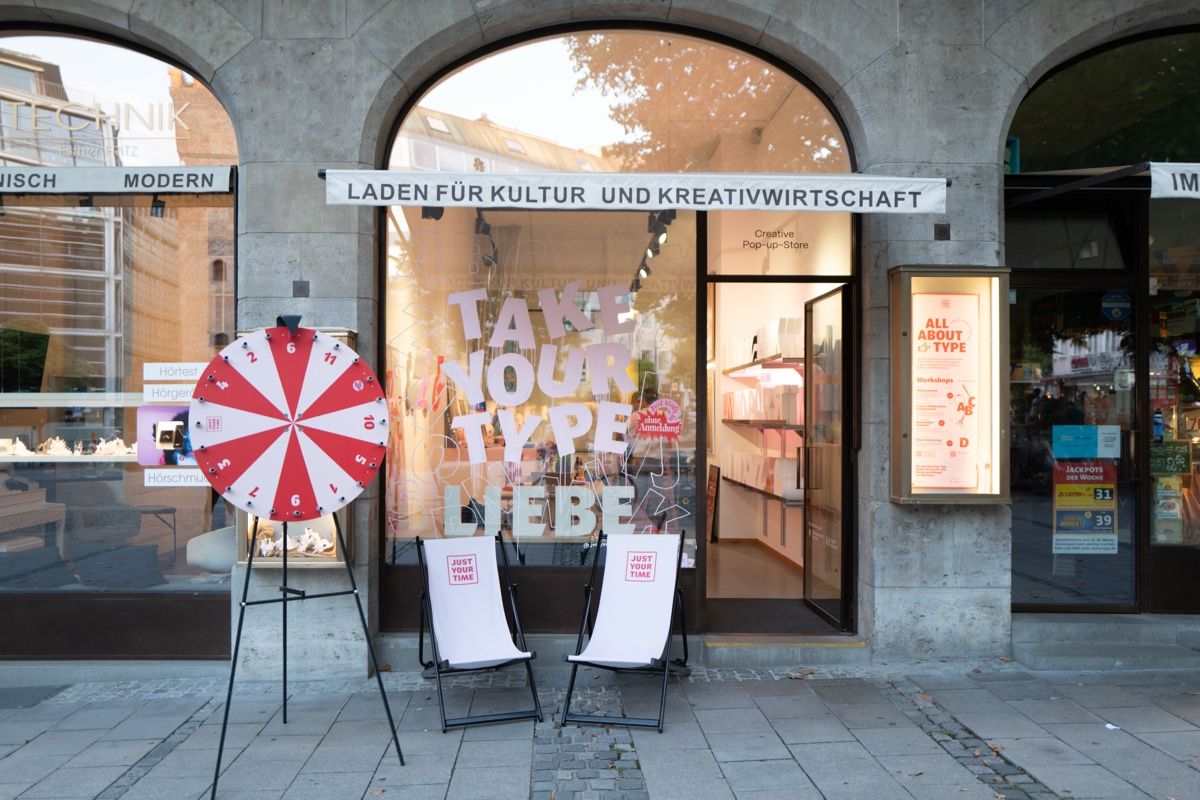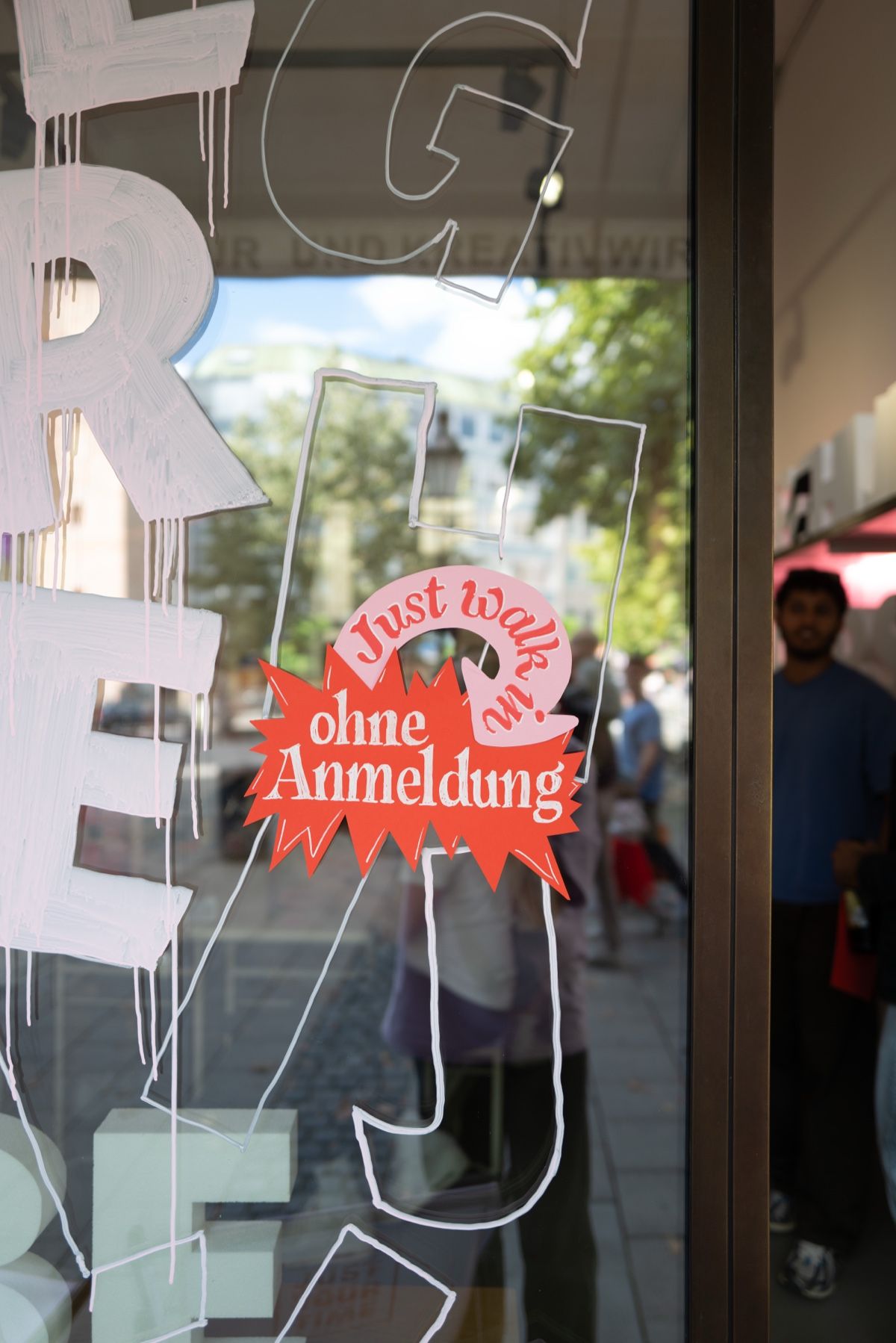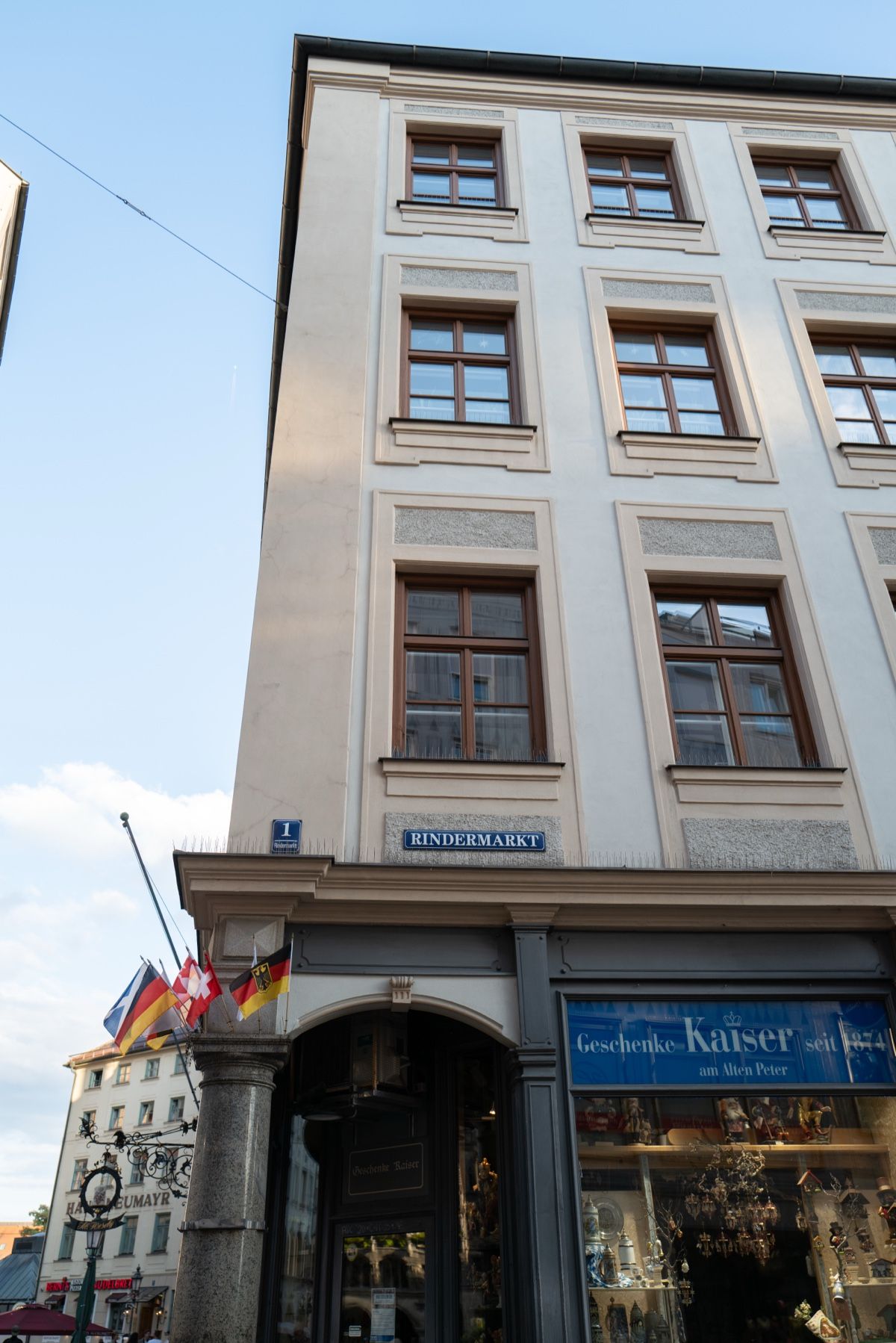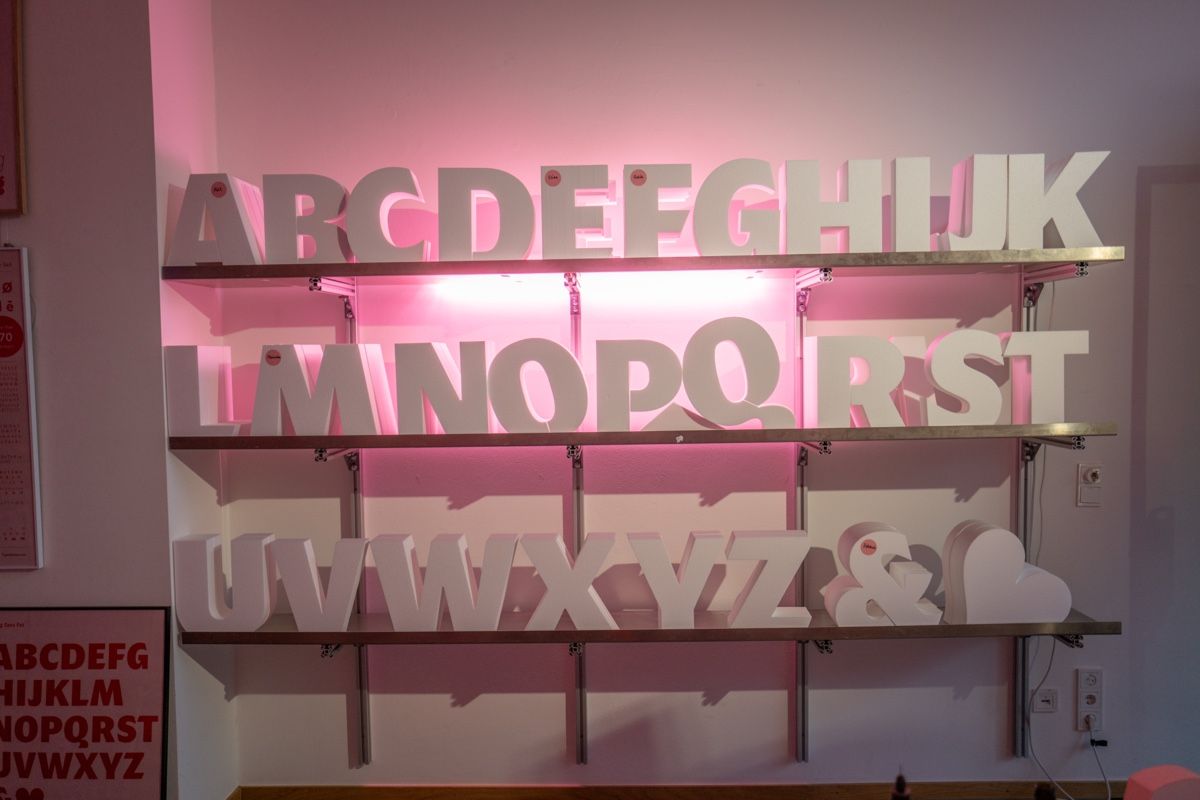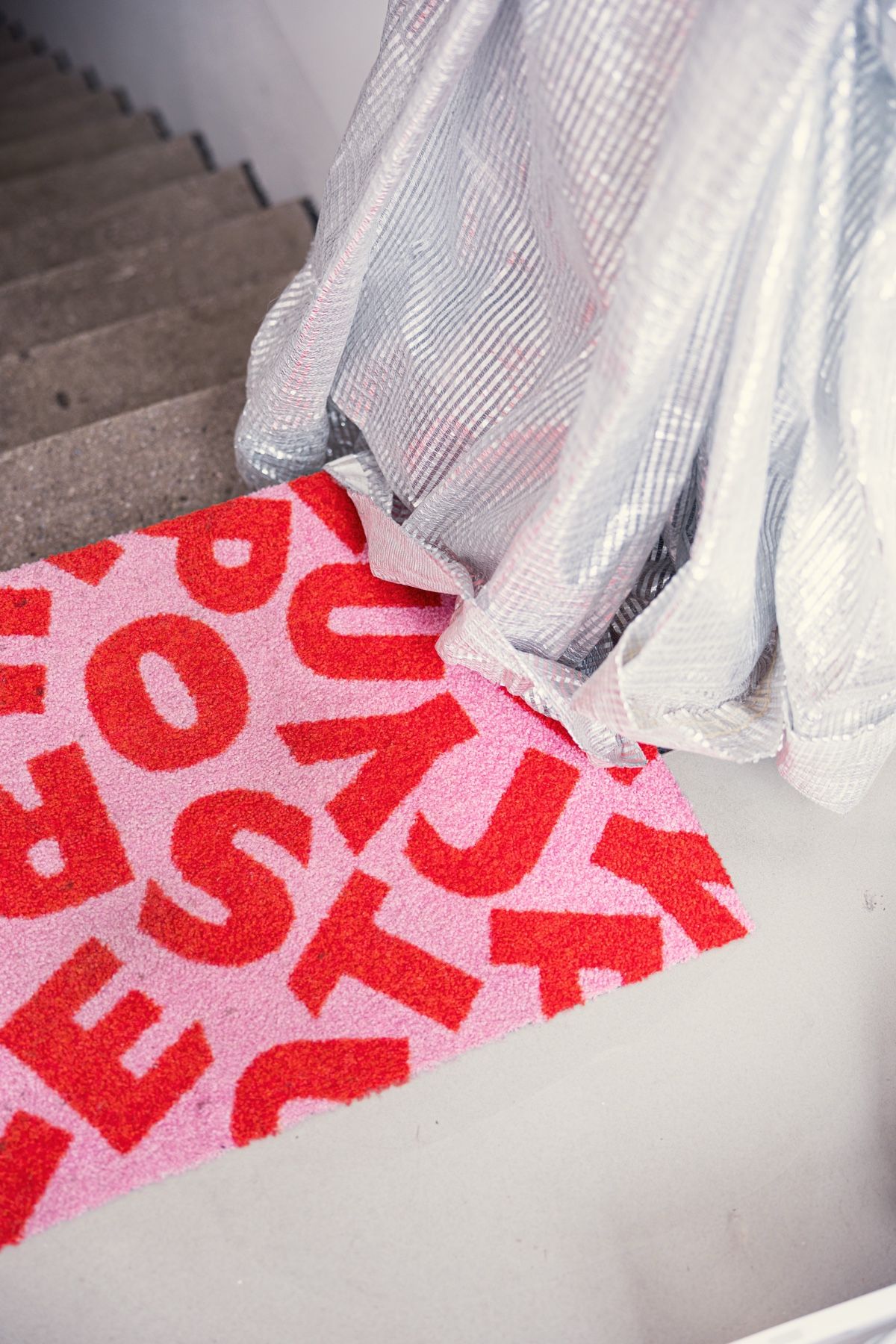
Pop-Up
What happens when a Munich type & branding studio takes its own typeface, Bang Sans, out of the screen and into the city?
From 18–29 August, Just Your Type turns Munich’s Ruffinihaus Creative Pop-Up into a playful playground for type, letters and design.
Expect giant light-up letters, oversized window lettering, a hand-welded 1-metre metal letter, a DIY wheel of fortune — and a huge ampersand disco ball.
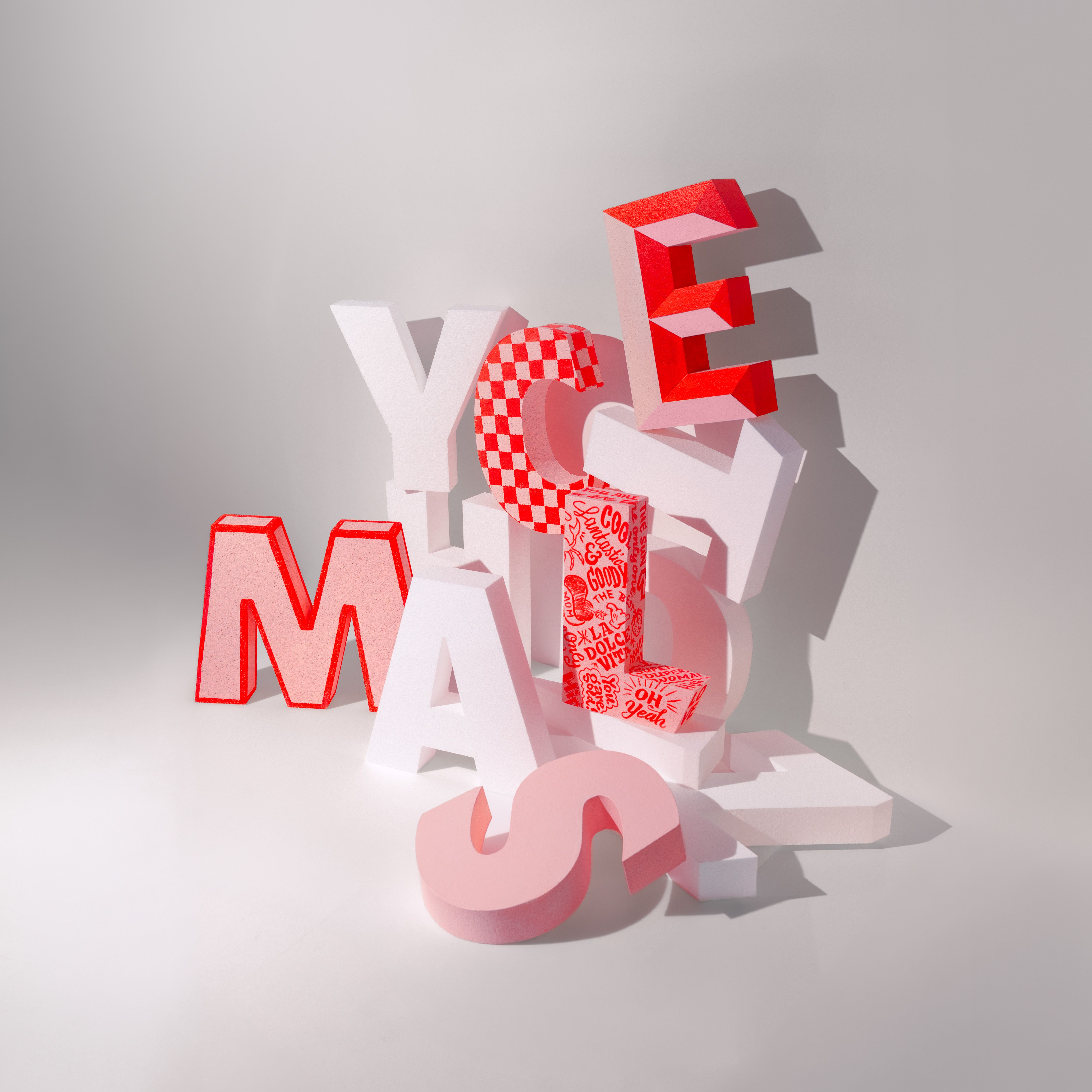
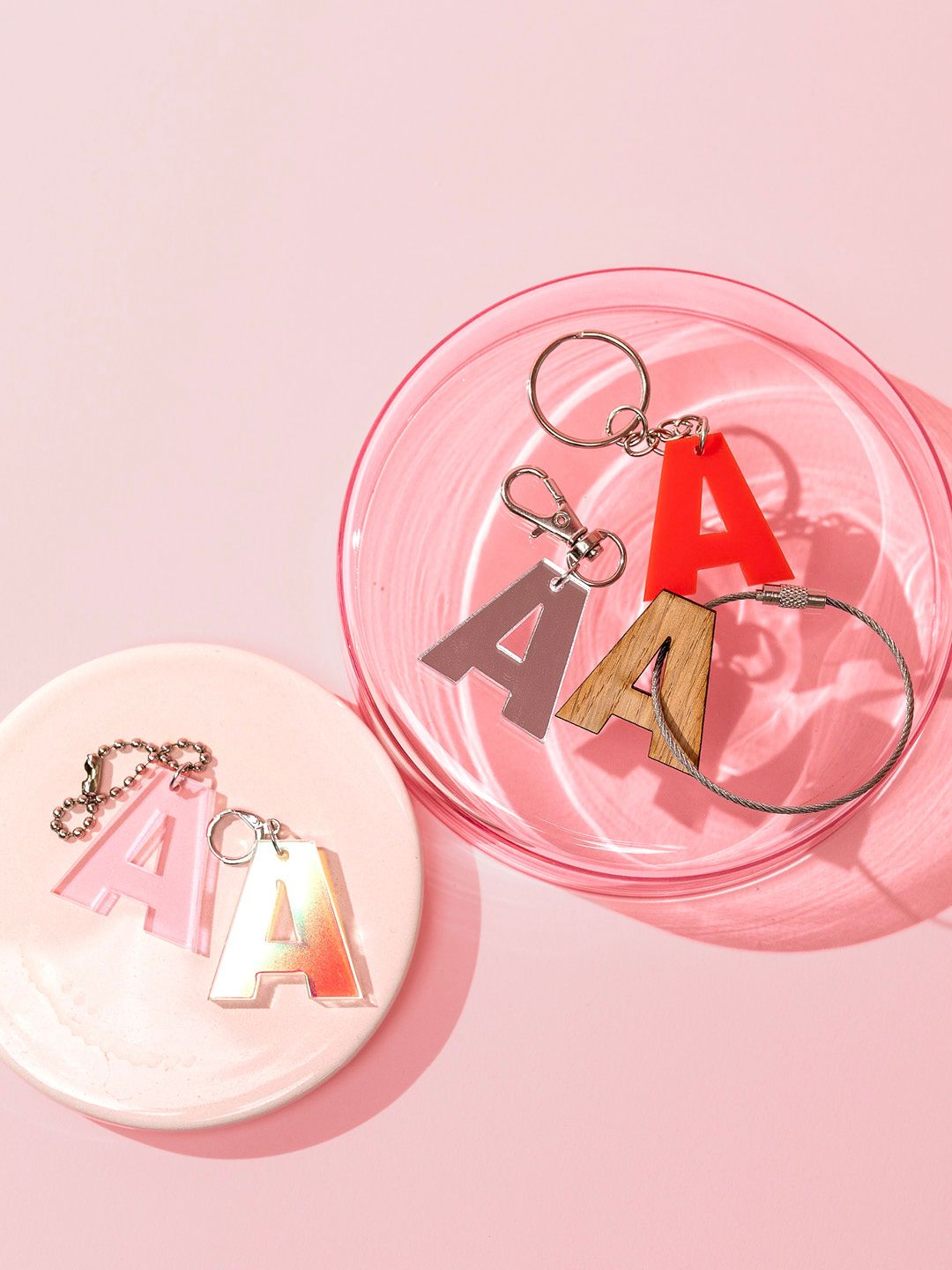
Get hands-on in our workshops
Take Your Type! Make your own letter accessories, paint giant letters or create a glittering disco letter with real glass mosaic. Our free participatory wall invites everyone — kids included — to cut, play and build with type.
All letters are made especially for the pop-up and strictly limited.